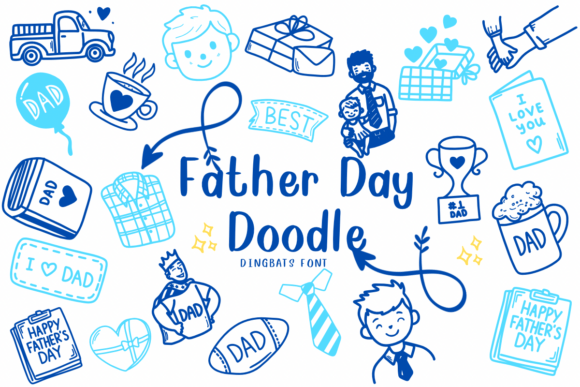
Embellish Your Father Day Projects with a Personal Touch
Remember that moment when you were brainstorming ideas for your child’s birthday party, and the spark of creativity hit you? You envisioned a whimsical, handmade decoration that would make the celebration truly special. That’s the magic of creative expression, and with the right tools, the possibilities are endless. For designers and crafty individuals, having a unique and versatile font can be the key to unlocking their imagination.
Enter the Father Day Doodle Font, a dingbats font that brings a lovely theme to your creative projects. This charming font is perfect for enhancing wedding invitations, DIY crafts, decorations, logos, and many other ideas. Its value lies in its ability to add a personal touch to any design, making it stand out from the ordinary.
Whether you’re a seasoned designer or a crafty enthusiast, the Father Day Doodle Font is an essential tool to have in your arsenal. Its versatility and charm make it an ideal choice for any project that requires a little extra love and care.
Father’s Day Doodle Font Key Features
- Unique Hand-Drawn Design: The Father’s Day Doodle Font features a unique, hand-drawn design that adds a personal touch to any message or gift.
- Customizable: The Father’s Day Doodle Font allows for easy customization of colors, making it easy to match the font with any design or branding.
- Easy to Use: The font is designed to be easy to use, with a simple and intuitive interface that makes it easy to create professional-looking designs.
- Perfect for Father’s Day: The font is specifically designed for Father’s Day, making it the perfect choice for cards, gifts, and other celebratory items.
Design Review: Father Day Doodle Font
Overall, I think the Father Day Doodle Font has some fun and creative elements that make it perfect for personal, casual projects. ✨ I love the playful, hand-drawn feel of the letters, which adds a touch of whimsy and personality to any design. The font’s eclectic style also lends itself well to creative expressions and illustrations.
Here are some specific features that I think work well:
- Unique style**: The font’s doodle-inspired design makes it stand out from more traditional, serif or sans-serif fonts.
- Expressive flair**: The hand-drawn feel of the letters adds a lot of character and emotion to any design.
- Creative possibilities**: The font’s eclectic style lends itself well to creative expressions and illustrations.
That being said, I do have some concerns about the font’s limitations. ⚠️ While it’s perfect for personal, casual projects, I think it may not be the best choice for more formal or professional designs. Additionally, some of the letters may not be as legible or clear as they could be, which could be a problem in certain contexts.
Overall, I think the Father Day Doodle Font is a fun and creative choice for personal or casual projects, but may not be the best fit for more formal or professional designs.